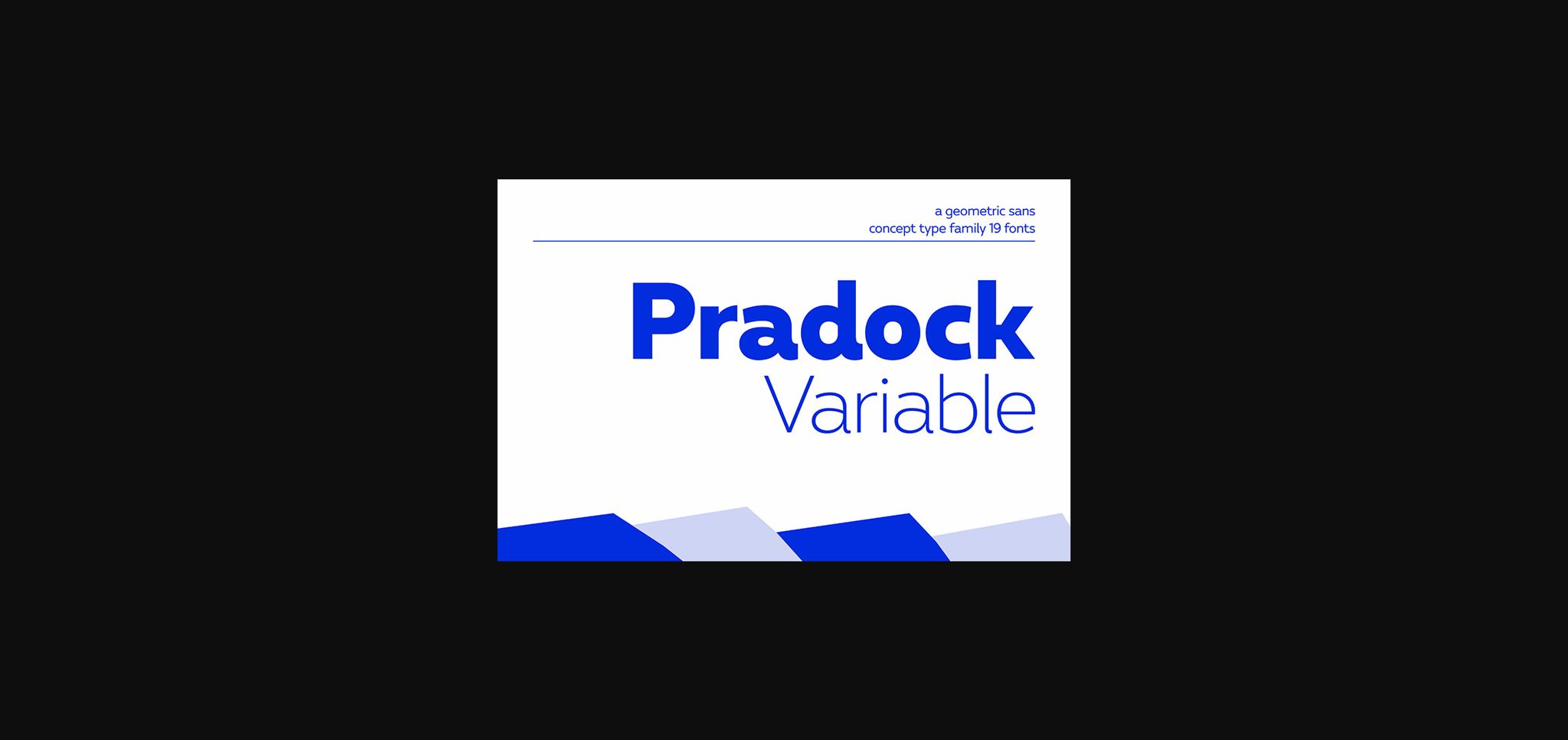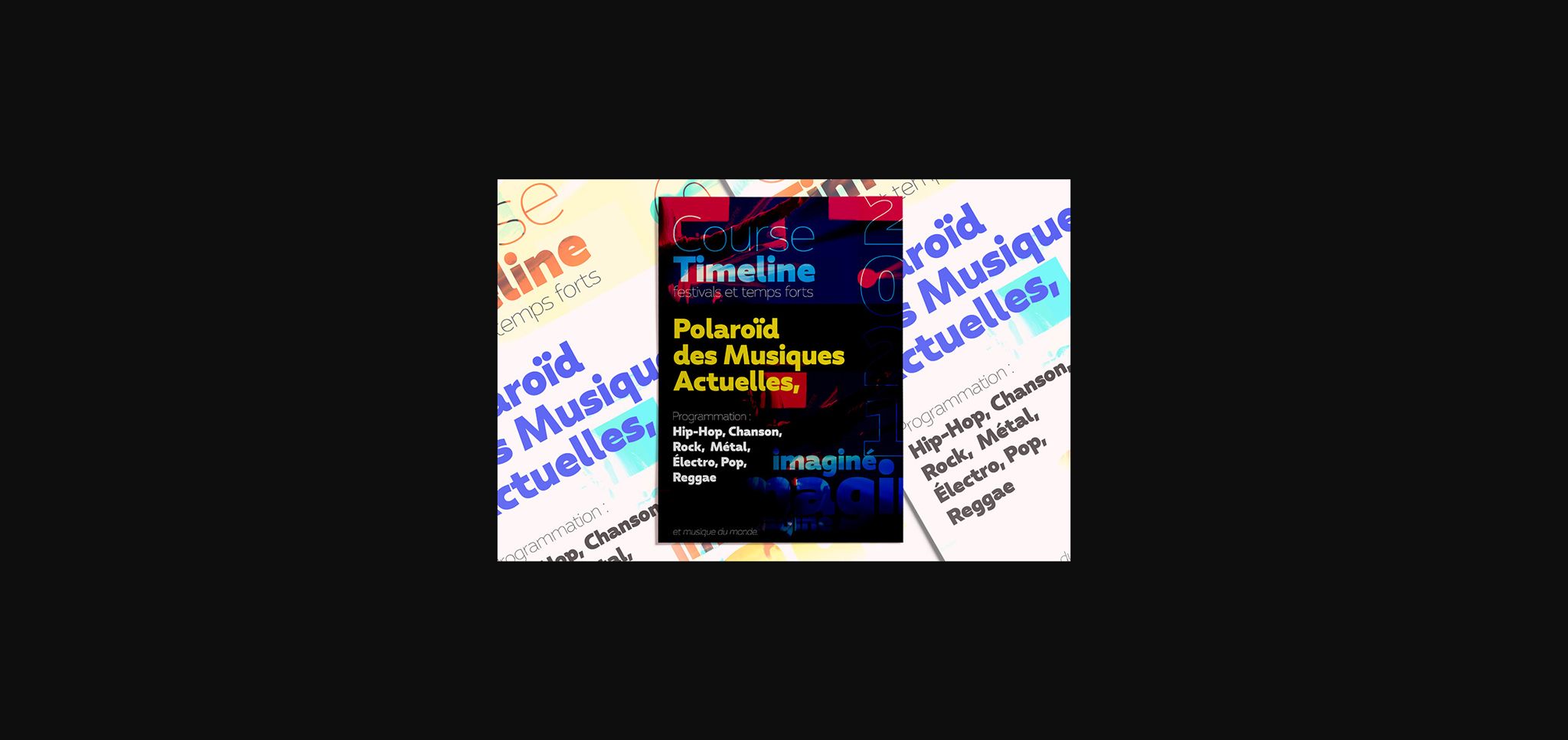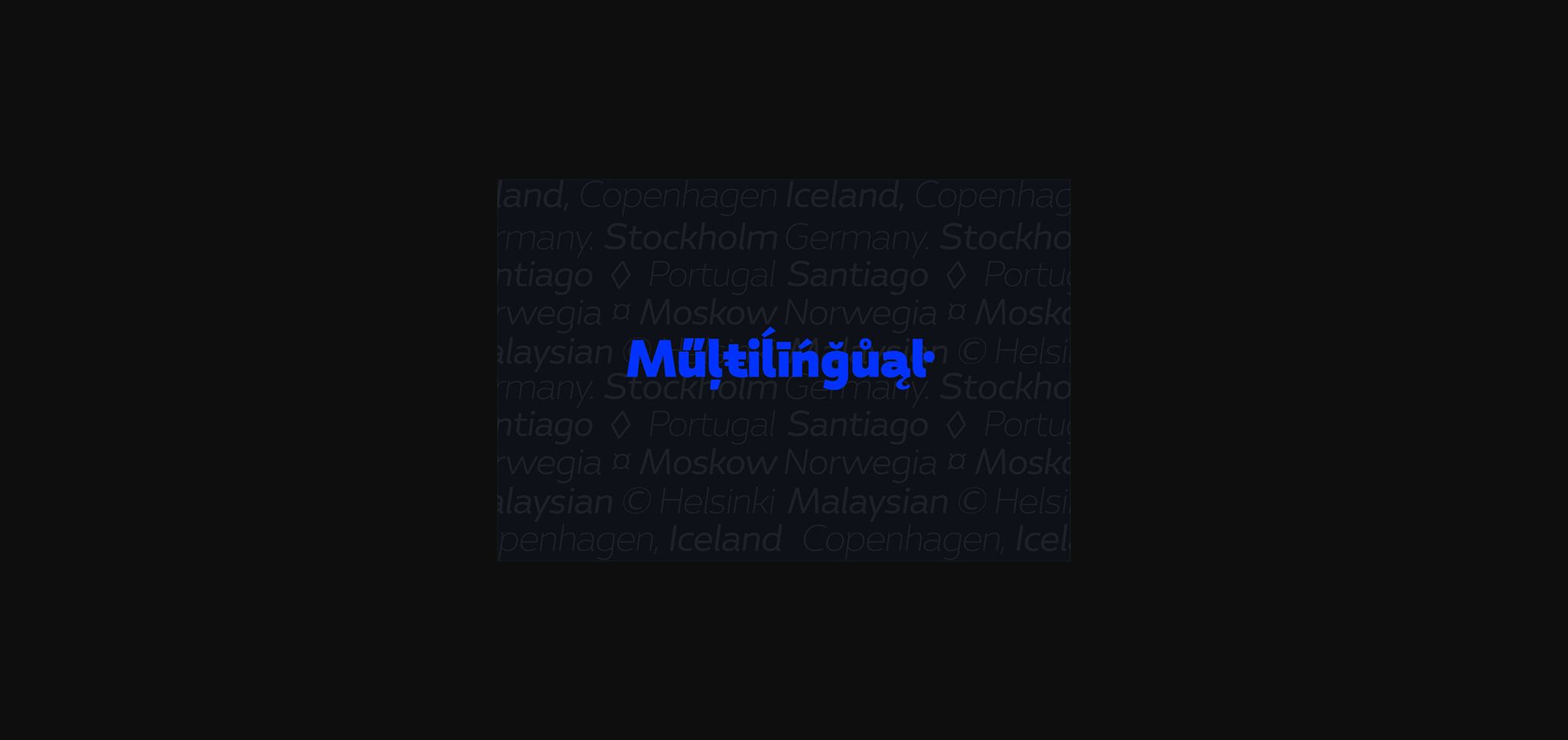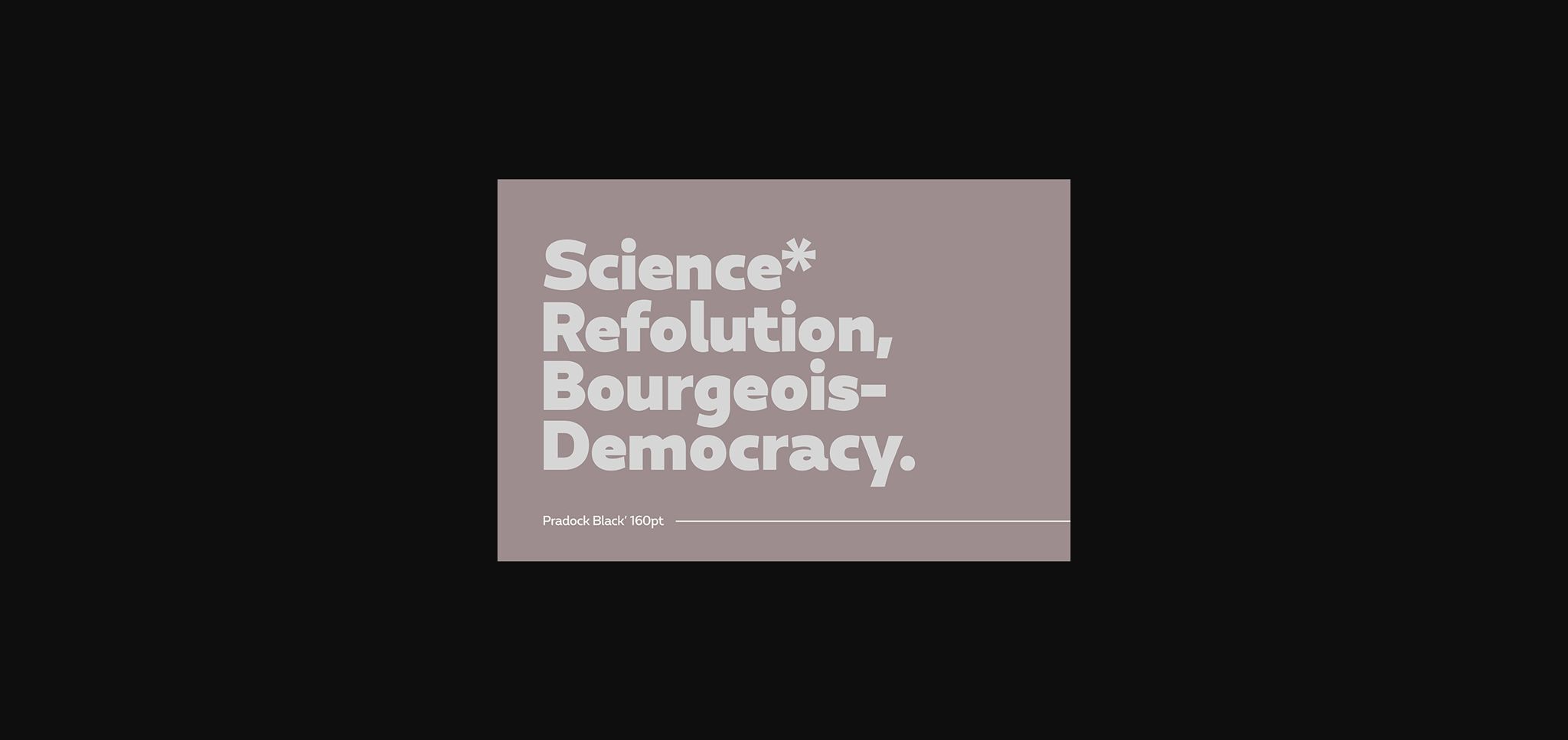
About Pradock Font
Pradock the newest geometric Sans-Serif font for a family is easy to use almost anywhere on your website, be it in the header or as smaller text with the Variable concept. A font with a bold aesthetic that is energetic and youthful, this is an excellent choice for the millennial demographic – which is why it is so well suited to use by digital and creative agencies.